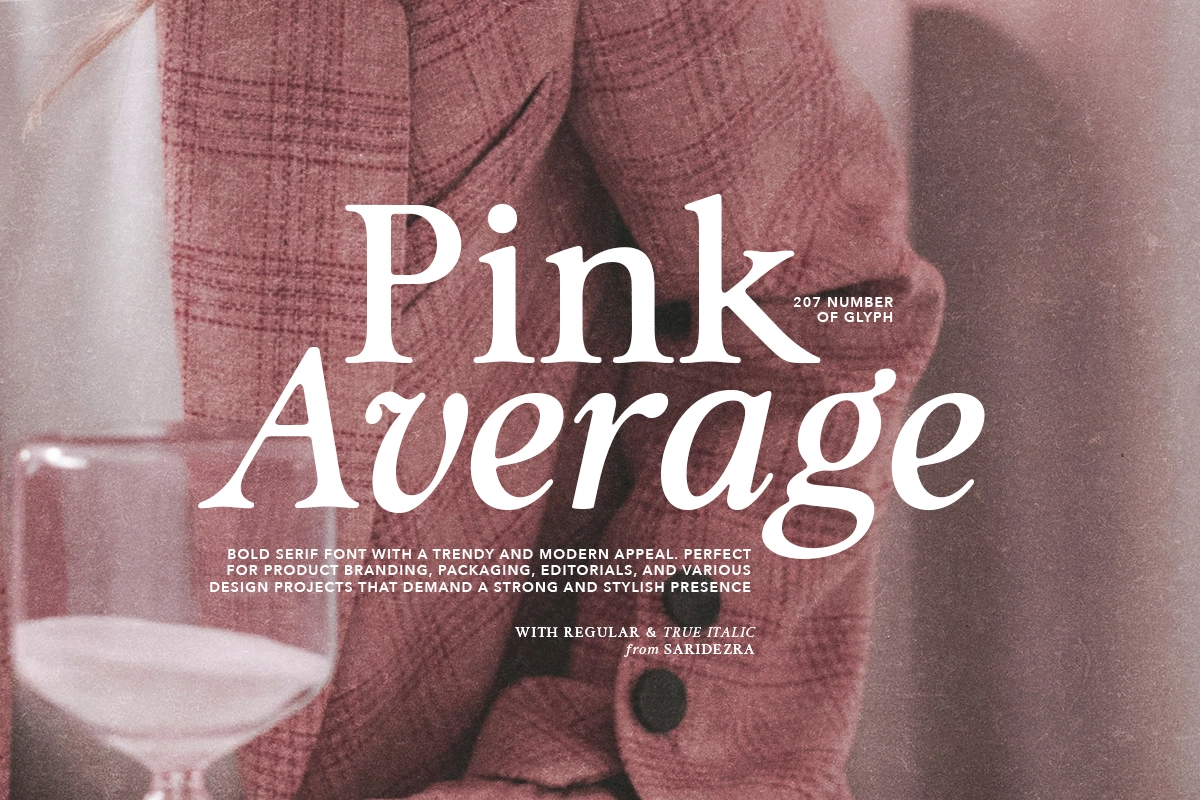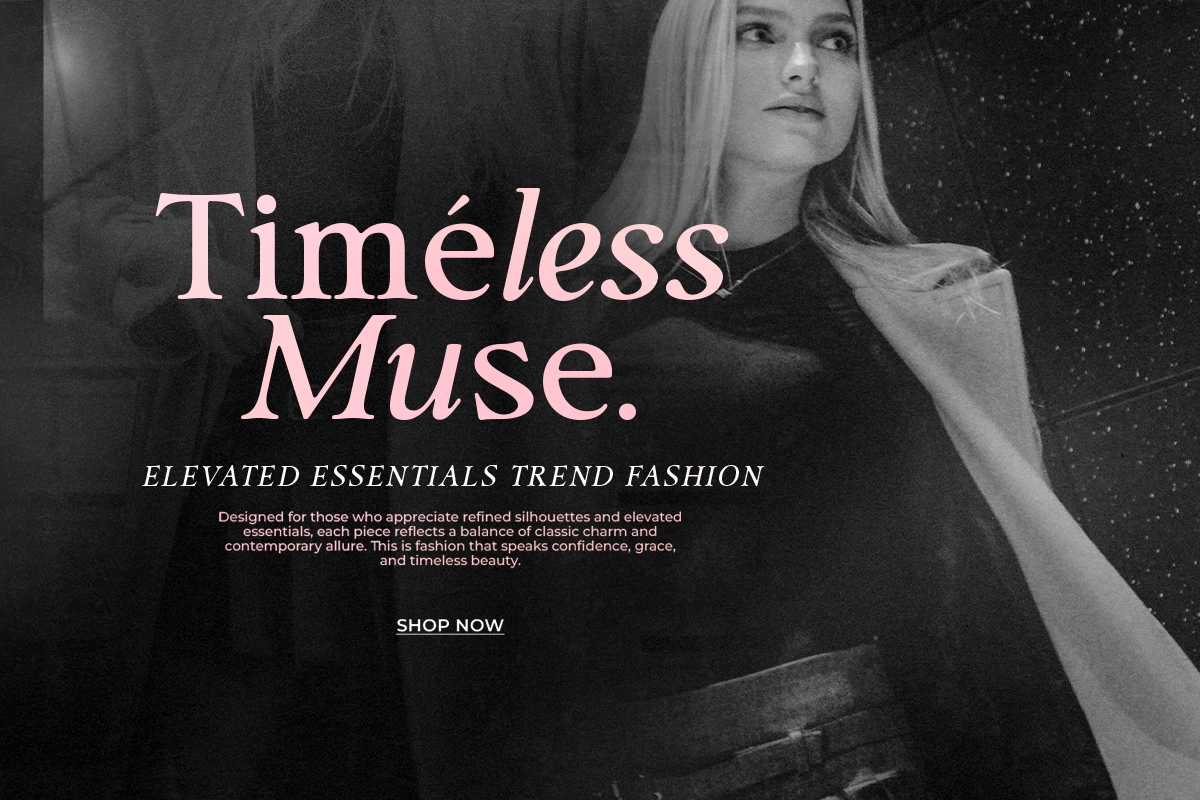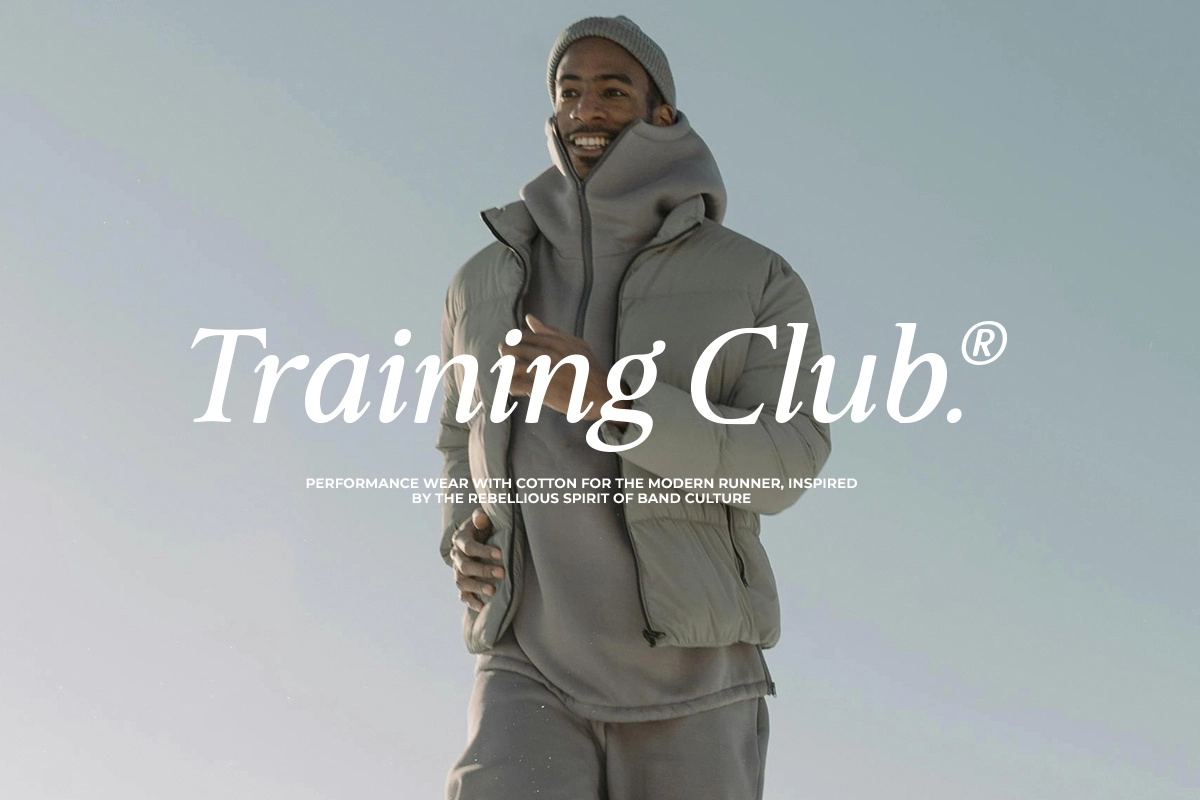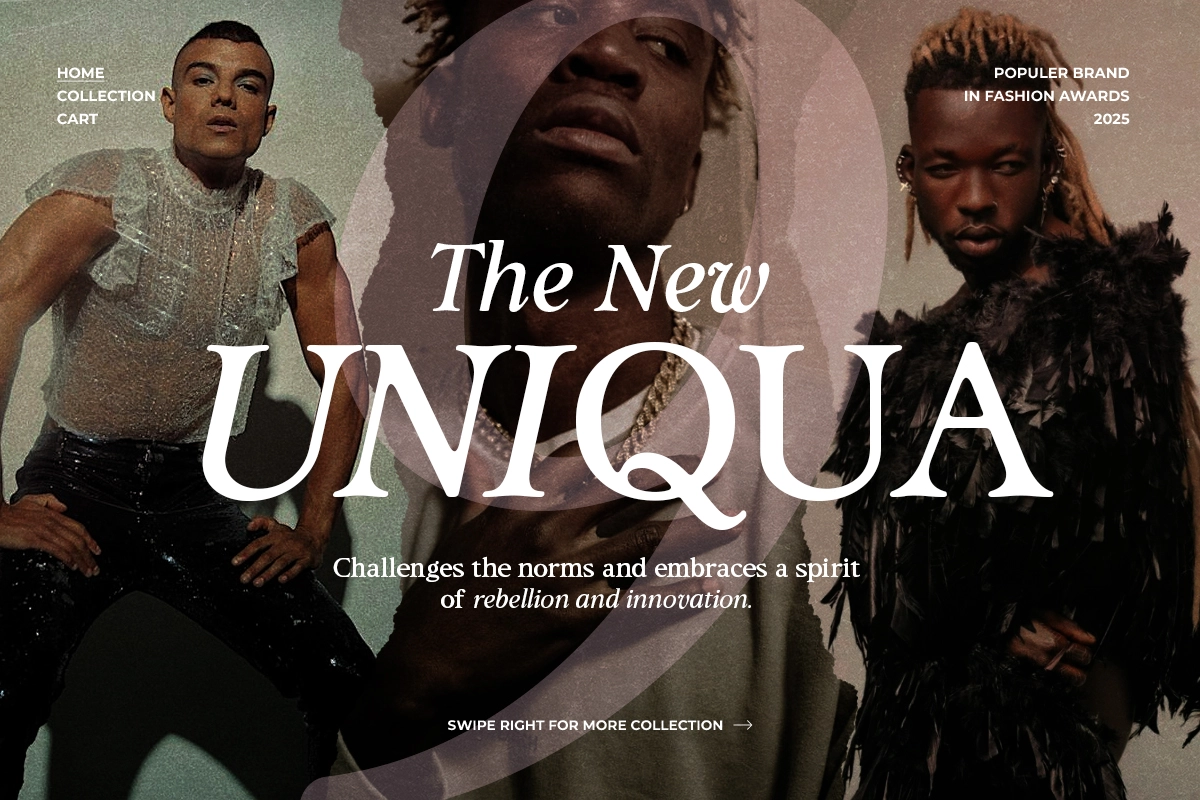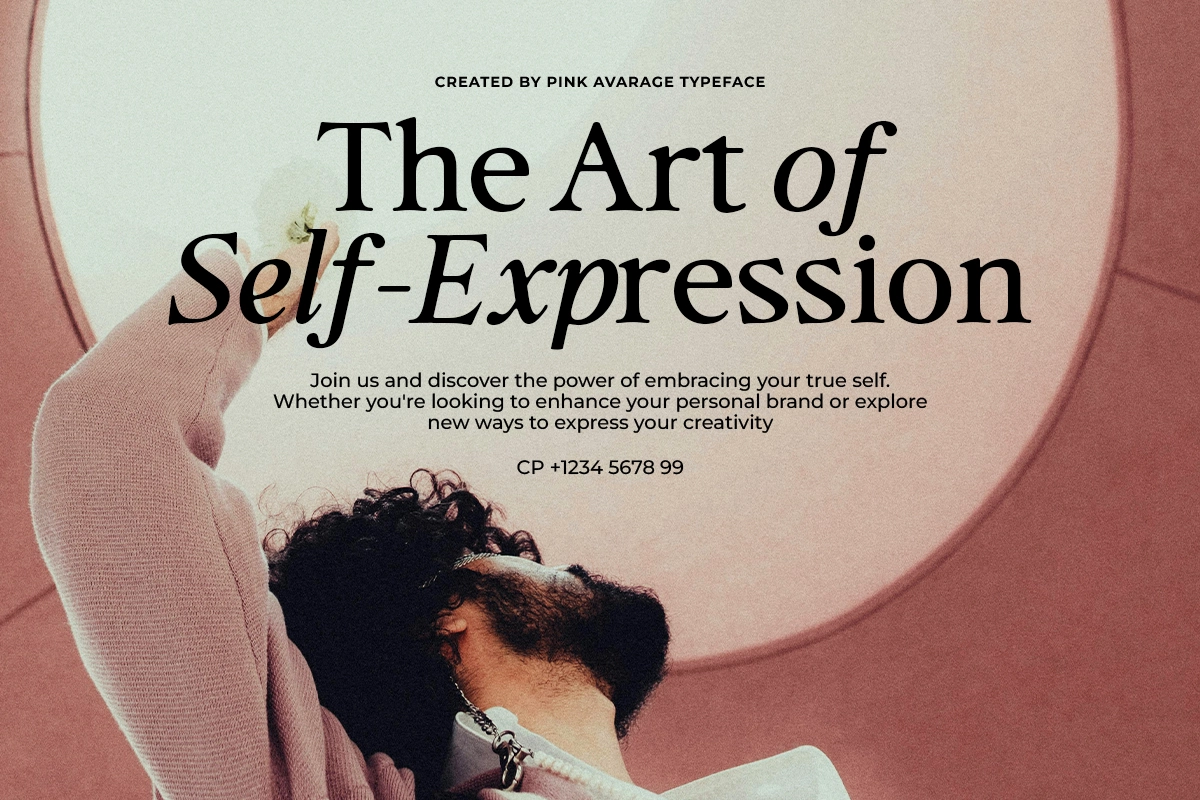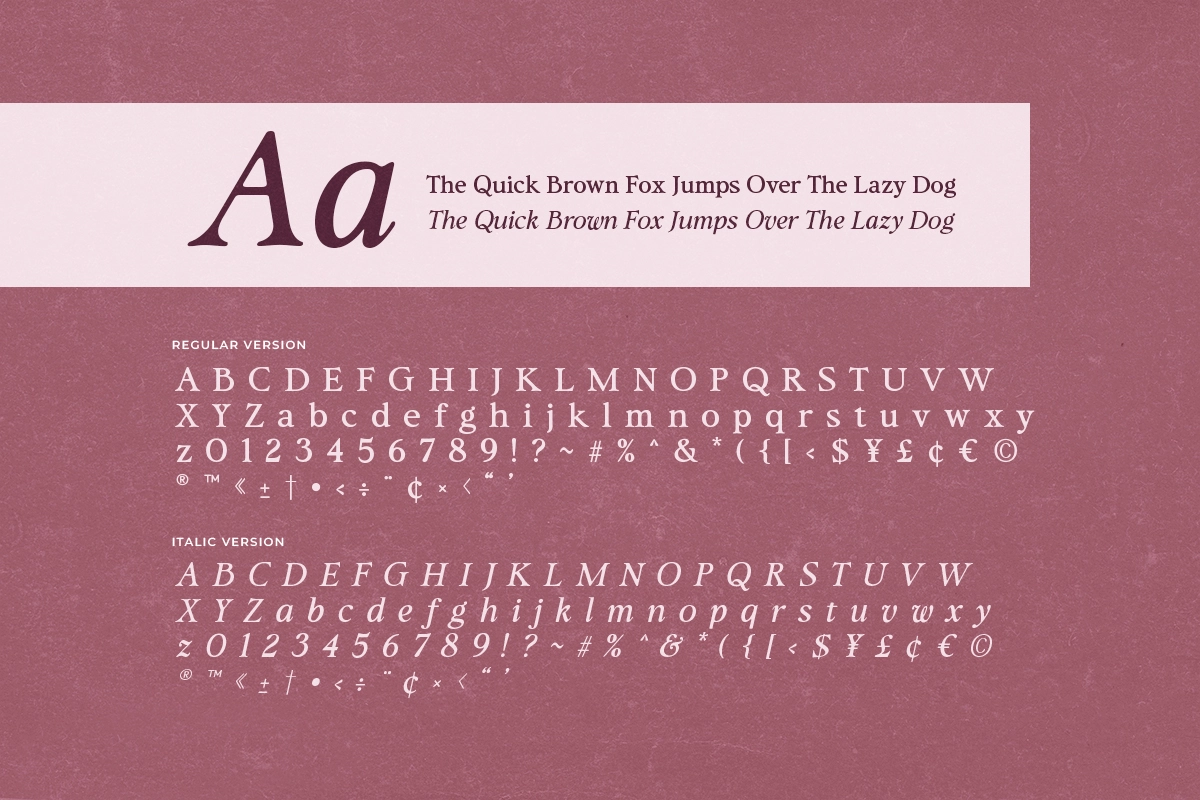
Pink Average - Trendy Modern Serif
Pink Average is a trendy bold serif with true italic that have modern, chic , and aesthetic vibes that you can use for any purposes such as wedding invitations, quotes, logo, and branding. With beautifully crafted italic, you can combine both style for stunning and timeless looks for branding design. Pink Average also support multi language!